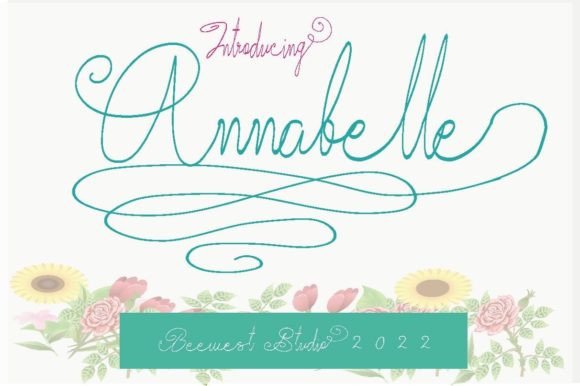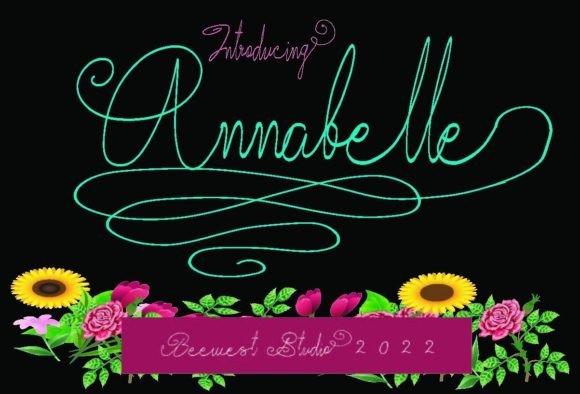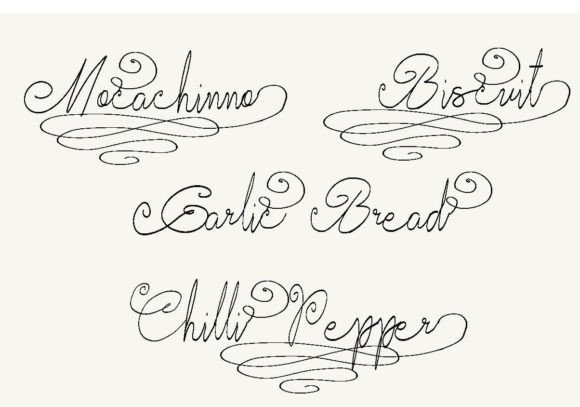
Introducing Annabelle Font: The Sweet and Friendly Handwritten Font
Are you looking for a font that can add a touch of warmth and personality to your designs? Look no further than Annabelle Font! This sweet and friendly handwritten font is perfect for designers and crafters who want to create unique and engaging visual content. In this article, we’ll explore the features and benefits of Annabelle Font, and show you how it can elevate your designs to the next level.
What is Annabelle Font?
Annabelle Font is a beautiful handwritten font that is designed to bring a sense of friendliness and approachability to your designs. Its natural and unique style makes it incredibly versatile, and it can be used for a wide range of projects, from branding and advertising to crafting and DIY tutorials. Whether you’re creating digital content or print materials, Annabelle Font is the perfect choice for adding a personal touch.
Key Features of Annabelle Font
- Sweet and Friendly Style: Annabelle Font has a warm and inviting style that is perfect for creating designs that are approachable and engaging.
- Natural and Unique: The font’s natural and unique style makes it stand out from other handwritten fonts, and ensures that your designs will be one-of-a-kind.
- Highly Versatile: Annabelle Font can be used for a wide range of projects, from digital content to print materials, and can be paired with a variety of other fonts and design elements.
- Easy to Read: The font is highly legible, making it perfect for use in body text, headings, and titles.
Use Cases for Annabelle Font
Annabelle Font is incredibly versatile, and can be used for a wide range of projects and applications. Here are some ideas to get you started:
- Branding and Advertising: Use Annabelle Font to create unique and engaging brand identities, logos, and advertising materials.
- Crafting and DIY Tutorials: Add a personal touch to your crafting and DIY tutorials with Annabelle Font, and make your content stand out from the crowd.
- Digital Content: Use Annabelle Font to create engaging and shareable digital content, such as social media graphics, blog posts, and email newsletters.
- Print Materials: Annabelle Font is perfect for use in print materials, such as brochures, flyers, and business cards.
Tips for Using Annabelle Font
Here are some tips for getting the most out of Annabelle Font:
- Pair with Other Fonts: Annabelle Font pairs well with a variety of other fonts, so don’t be afraid to experiment and find the perfect combination for your design.
- Use for Headings and Titles: Annabelle Font is perfect for use in headings and titles, where its unique and eye-catching style can really shine.
- Add Texture and Patterns: Add texture and patterns to your designs with Annabelle Font, and create unique and engaging visual content.
In conclusion, Annabelle Font is a sweet and friendly handwritten font that is perfect for designers and crafters who want to add a personal touch to their designs. Its natural and unique style makes it incredibly versatile, and it can be used for a wide range of projects and applications. Whether you’re creating digital content or print materials, Annabelle Font is the perfect choice for adding a touch of warmth and personality to your designs. So why wait? Download Annabelle Font today and start creating!